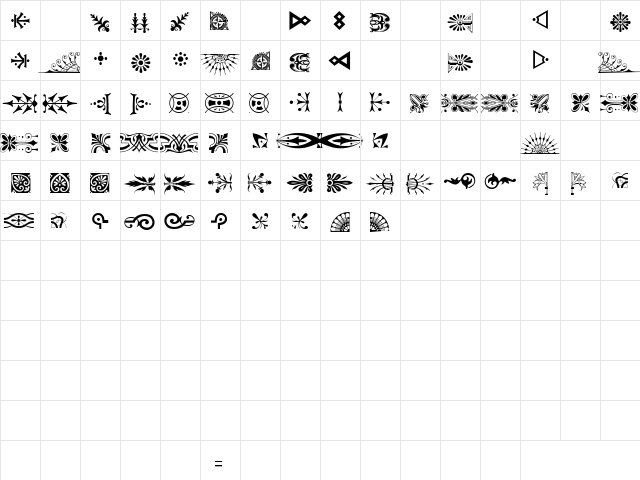
P22 Victorian Ornaments One Ornaments One
Design Context for P22 Victorian Ornaments One Typeface
P22 Victorian Ornaments One brings ornamental detail and strong personality to headlines and identities, where visual impact matters more than quiet functionality.
Font Pairing: Pair with a clean neutral sans-serif for body copy to let P22 Victorian Ornaments One's character lead without overwhelming the composition.
Pro Tip: Use P22 Victorian Ornaments One exclusively at display sizes — it was designed to be seen, not read at length. Let a neutral companion handle body copy.